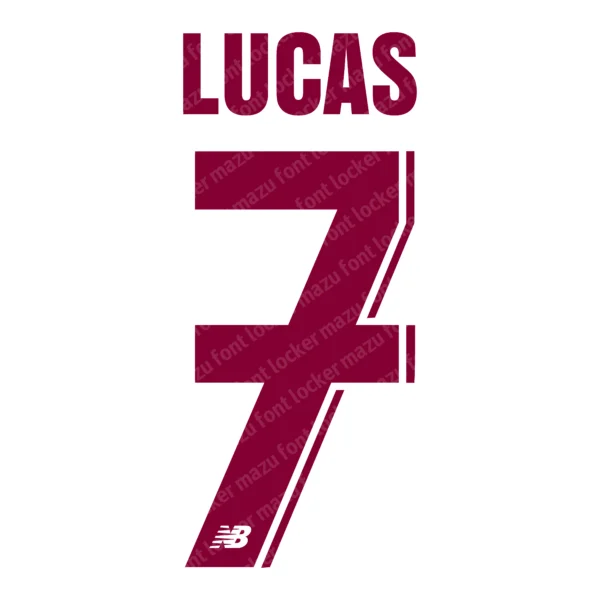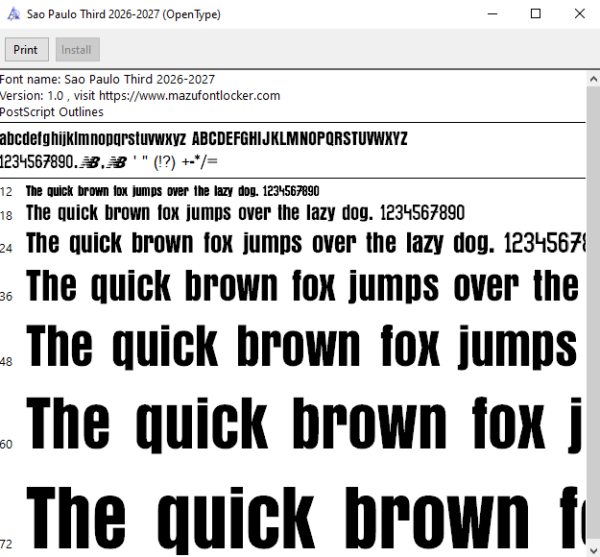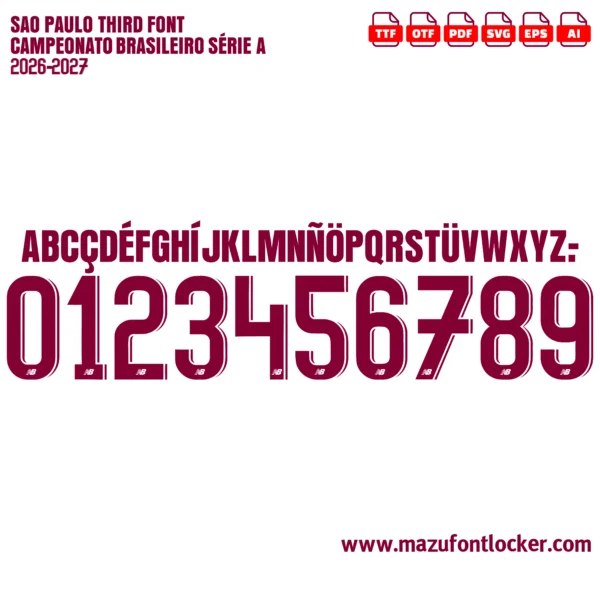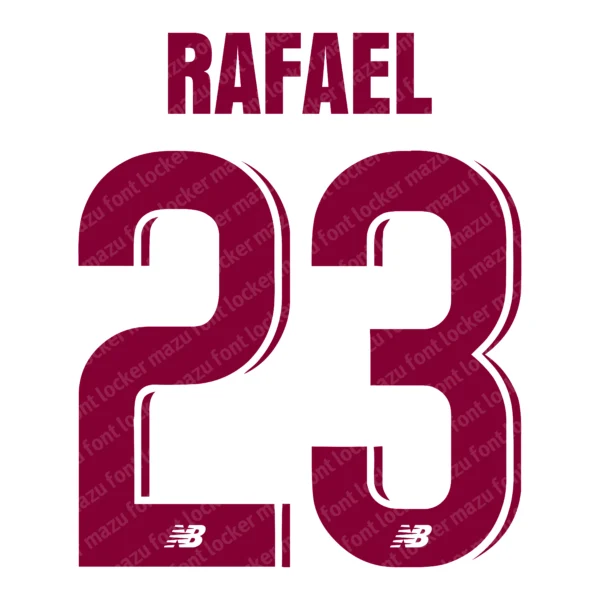
Sao Paulo 2026-2027 Font Vector – Epic Tricolor Paulista Masterpiece
This font delivers the commanding, high-impact lettering that embodies São Paulo FC’s iconic tricolor identity, sovereign Brazilian football power, and elite intensity — perfect for professional jersey mockups, dynamic football graphics, premium sports branding, and high-end fan designs.
Sao Paulo 2026-2027 Font Vector – Iconic Tricolor Matchday Typeface
The Sao Paulo 2026-2027 Font Vector is a premium typeface that accurately recreates the distinctive match lettering associated with Sao Paulo FC during the 2026-2027 football season. This high-quality vector font kit captures the bold, clean, and instantly recognizable typography that perfectly complements the club’s iconic red, white and black tricolor identity.
Designed for professional designers, football enthusiasts, jersey collectors, and passionate Sao Paulo supporters, the Sao Paulo 2026-2027 Font Vector delivers exceptional authenticity for creating realistic jersey mockups, football merchandise, social media graphics, match posters, squad designs, and custom fan artwork. Every character has been carefully recreated to reflect the powerful and precise visual style of one of Brazil’s most traditional and successful football clubs – O Tricolor Paulista.
Why Choose Sao Paulo 2026-2027 Font Vector
This font stands out thanks to its precise vector construction and authentic club-inspired styling. Every letter and numeral has been meticulously recreated to match the distinctive football lettering aesthetic associated with Sao Paulo during the 2026-2027 season and its Brasileirão and Copa Libertadores campaigns.
Whether you’re producing professional football kit templates, custom jersey concepts, or eye-catching football content, the Sao Paulo 2026-2027 Font Vector delivers a genuine match-ready appearance inspired by the identity of O Mais Querido.
The lettering featured in the Sao Paulo 2026-2027 Font Vector combines clean geometric lines with bold modern proportions. The result is a premium and highly readable typeface that reflects Sao Paulo’s proud football heritage, iconic tricolor colours, São Paulo identity, and the passionate support of the Tricolor faithful.
- Complete uppercase A–Z alphabet and numbers 0–9 in authentic Sao Paulo 2026-2027 inspired style
Wearing their iconic red, white and black colours, Sao Paulo continue to represent a proud football tradition built on passion, community spirit, and a strong connection with supporters known as the Tricolor at Morumbi and around the world. The Sao Paulo 2026-2027 Font Vector is inspired by the distinctive football typography and visual identity associated with this campaign, making it an excellent choice for designers creating custom jersey concepts, football posters, squad graphics, matchday artwork, and fan-made projects. For official club information, news, team updates, fixtures, and match information, visit the official Sao Paulo FC website.
The Sao Paulo 2026-2027 Font Vector is an independently designed typeface package inspired by the official shirt lettering and visual identity associated with Sao Paulo FC during the 2026-2027 football season. It has been carefully recreated for football enthusiasts, graphic designers, collectors, jersey creators, and fans producing custom football concepts, digital artwork, and fan-made projects. Please note that this is a fan-made design resource and is not an official product of Sao Paulo FC, the CBF, CONMEBOL, or any associated organization.